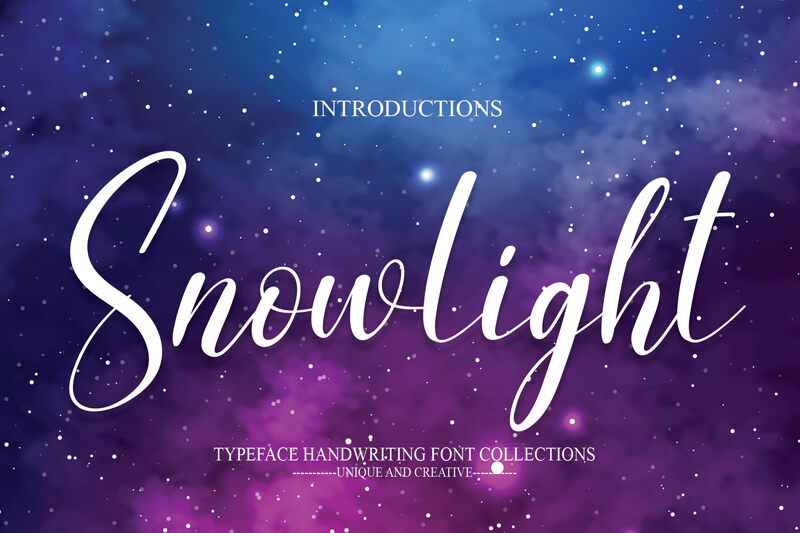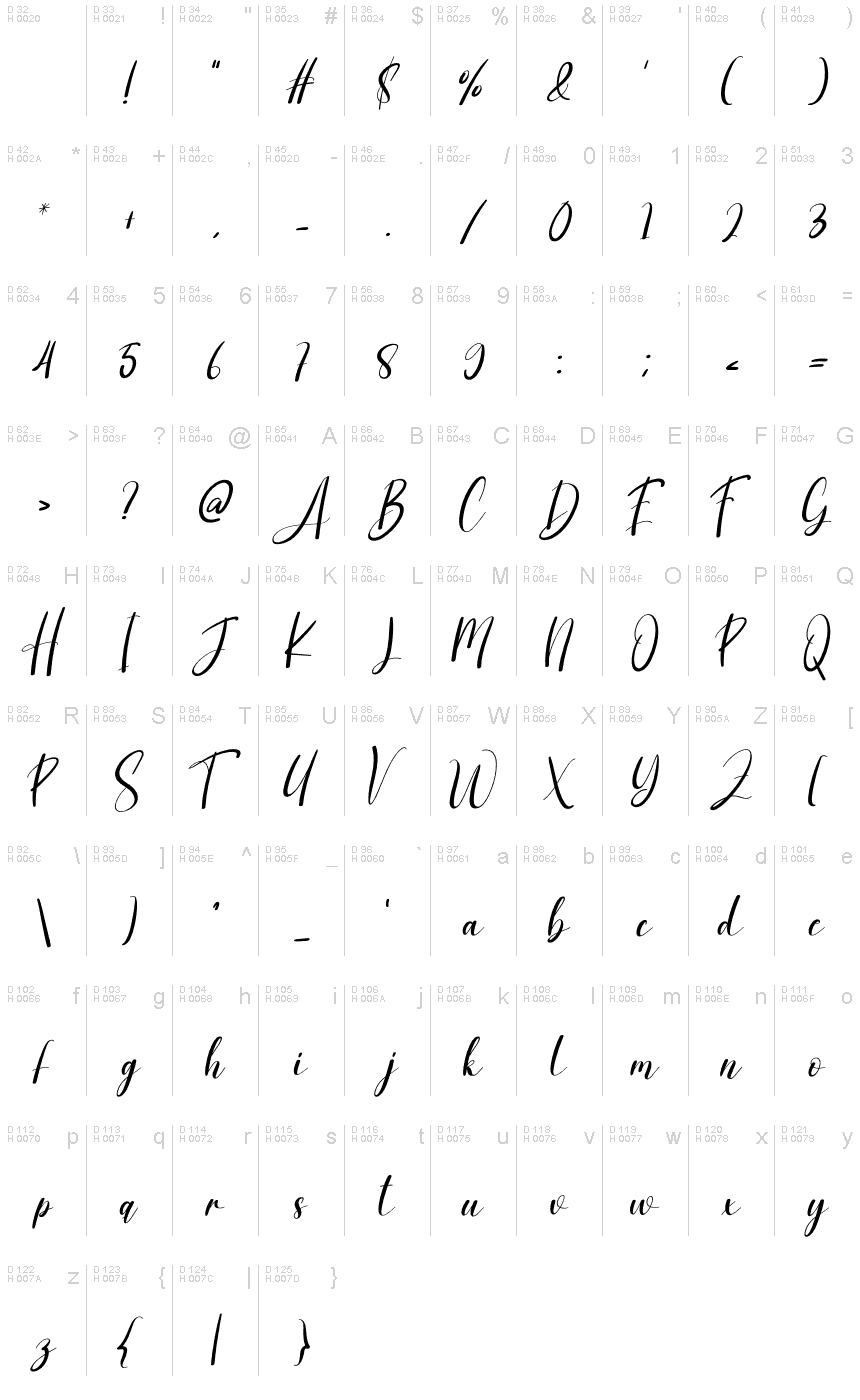
Snowlight
Snowlight is a stunning calligraphy font designed by scratchones. With its semi-light weight and semi-condensed width, it exudes elegance, sophistication, and a touch of playfulness. This font is perfect for wedding invitations, greeting cards, logos, branding materials, and social media graphics. Use Snowlight to add a touch of whimsy to your projects while maintaining a professional look. Its unique style makes it stand out from other calligraphy fonts, making it perfect for those who want to create something truly special. Let Snowlight bring your designs to life with its beautiful curves and delicate strokes.
the latest style letters are perfect for wall displays, wedding invitations, social media post logos,
advertisements, product packaging, product designs, labels, photography, watermarks, invitations, stationery,
and any project that requires taste handwriting.